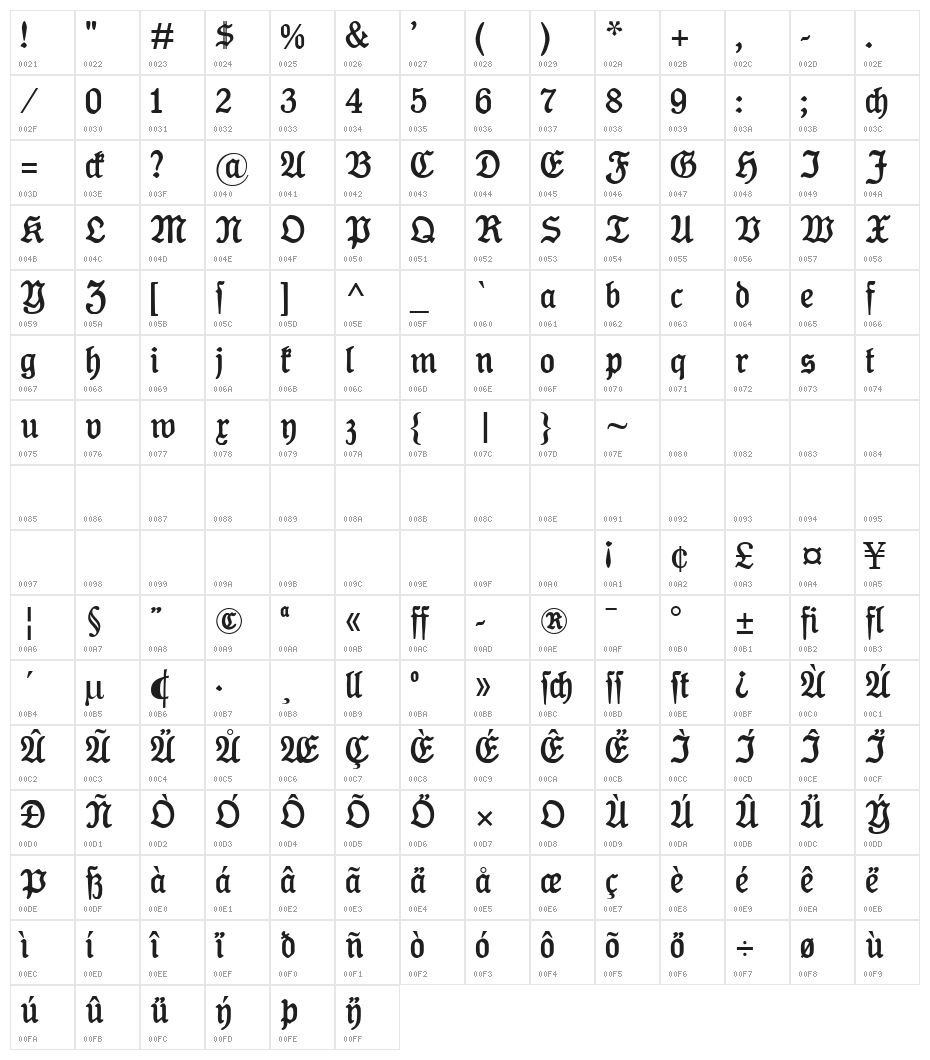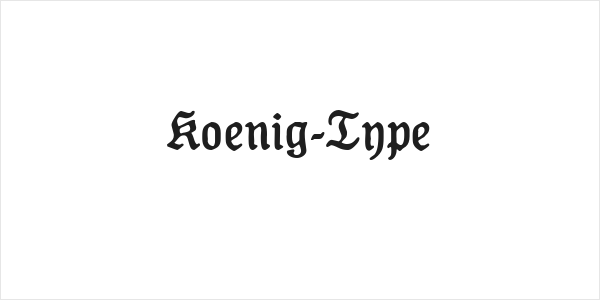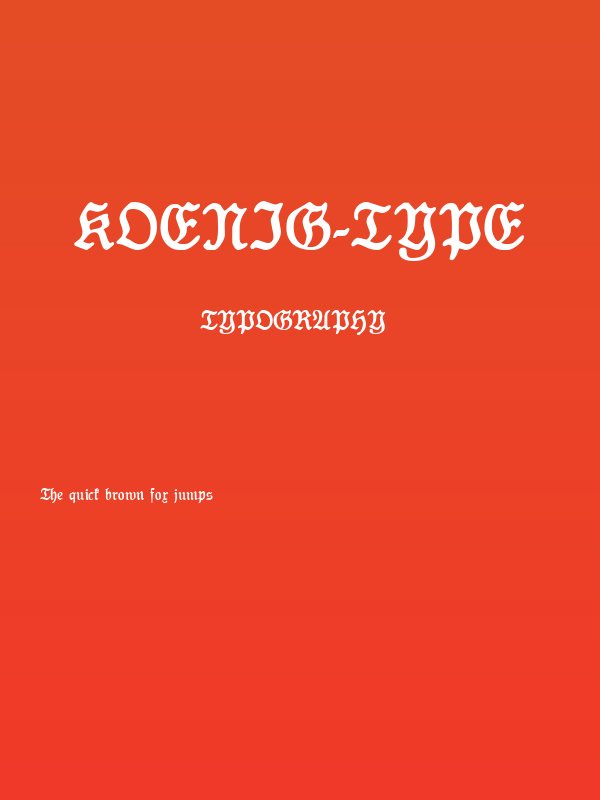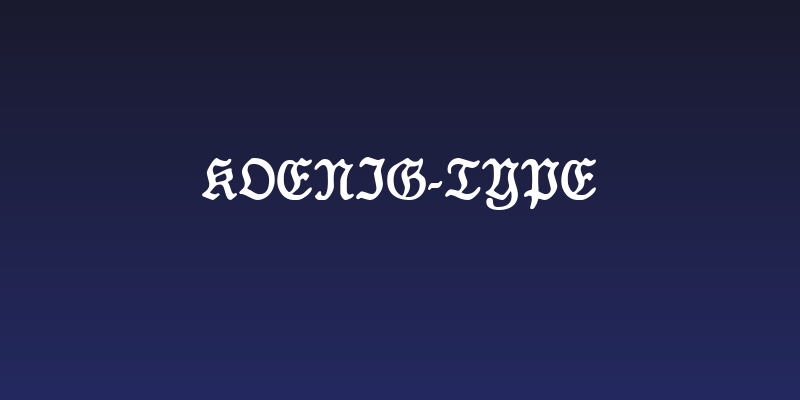
Koenig-Type Font
Koenig-Type Description
This font exudes a classic and historical charm, reminiscent of traditional blackletter styles. The characters are intricately designed with sharp, angular edges and elaborate curves, giving it a distinct medieval appearance. The uppercase letters are bold and commanding, while the lowercase letters maintain a consistent flow with a slightly more subdued presence. The numerals are equally ornate, matching the overall aesthetic of the font. Special characters are crafted with the same attention to detail, ensuring a cohesive look across all glyphs. This font is perfect for projects that require a touch of elegance and historical depth.
| Overall Style | Vintage |
| Use Case | Headlines, Logos, Decorative text |
| Proposed Projects | Ideal for historical documents, invitations, book covers, and branding that requires a vintage or gothic touch. |